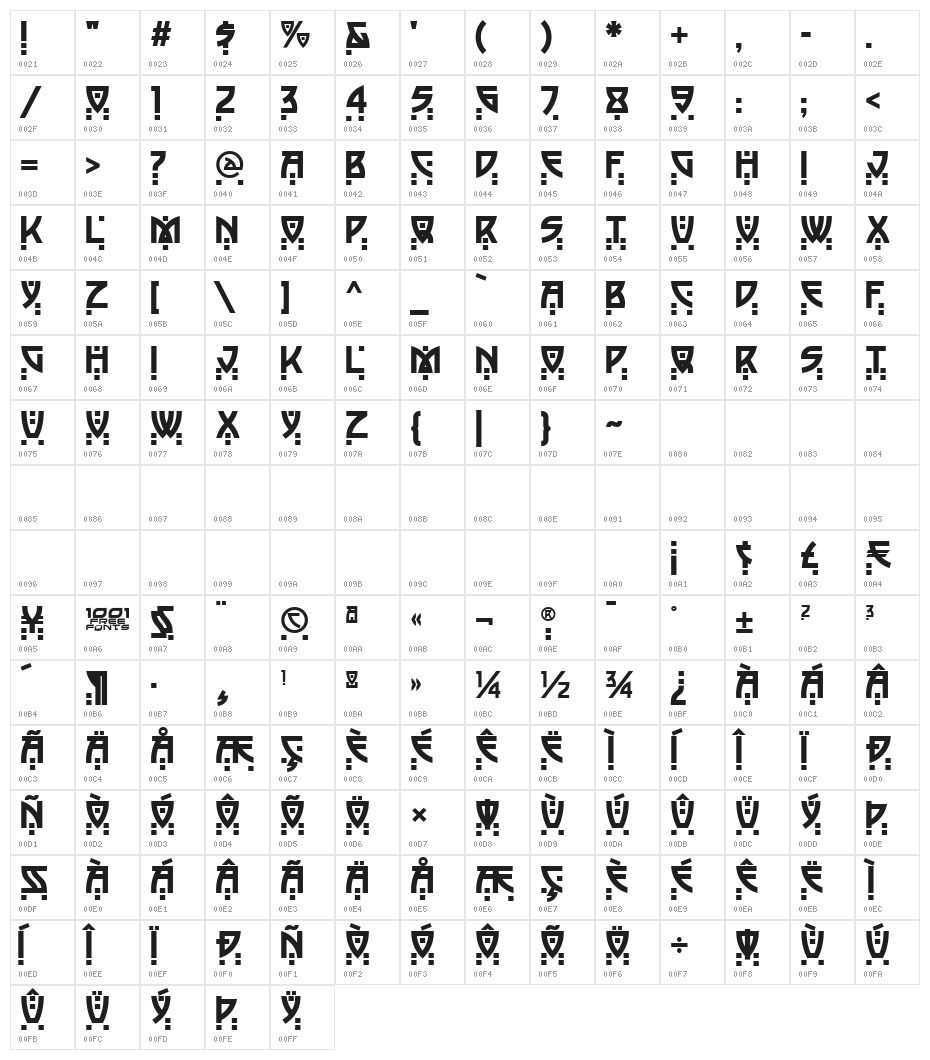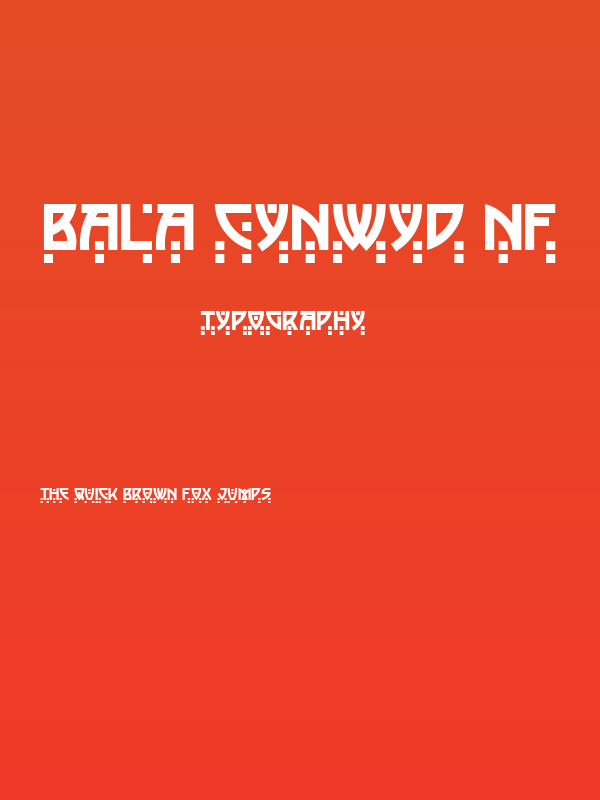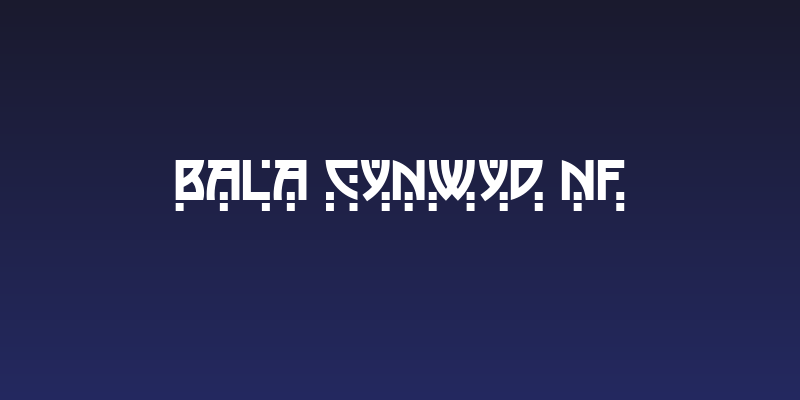
Bala Cynwyd NF Font
Bala Cynwyd NF Description
This font features a bold and geometric design with a distinctively tribal or ancient script aesthetic. Each character is constructed with thick, angular lines and incorporates unique dot patterns, adding a decorative and intricate touch. The uppercase and lowercase letters maintain a consistent style, emphasizing symmetry and boldness. Numbers and special characters follow the same design principles, ensuring uniformity across all glyphs. The font's striking appearance makes it ideal for projects that require a strong visual impact.
| Proposed Projects | Ideal for branding, posters, album covers, and any project needing a bold, decorative typeface. |